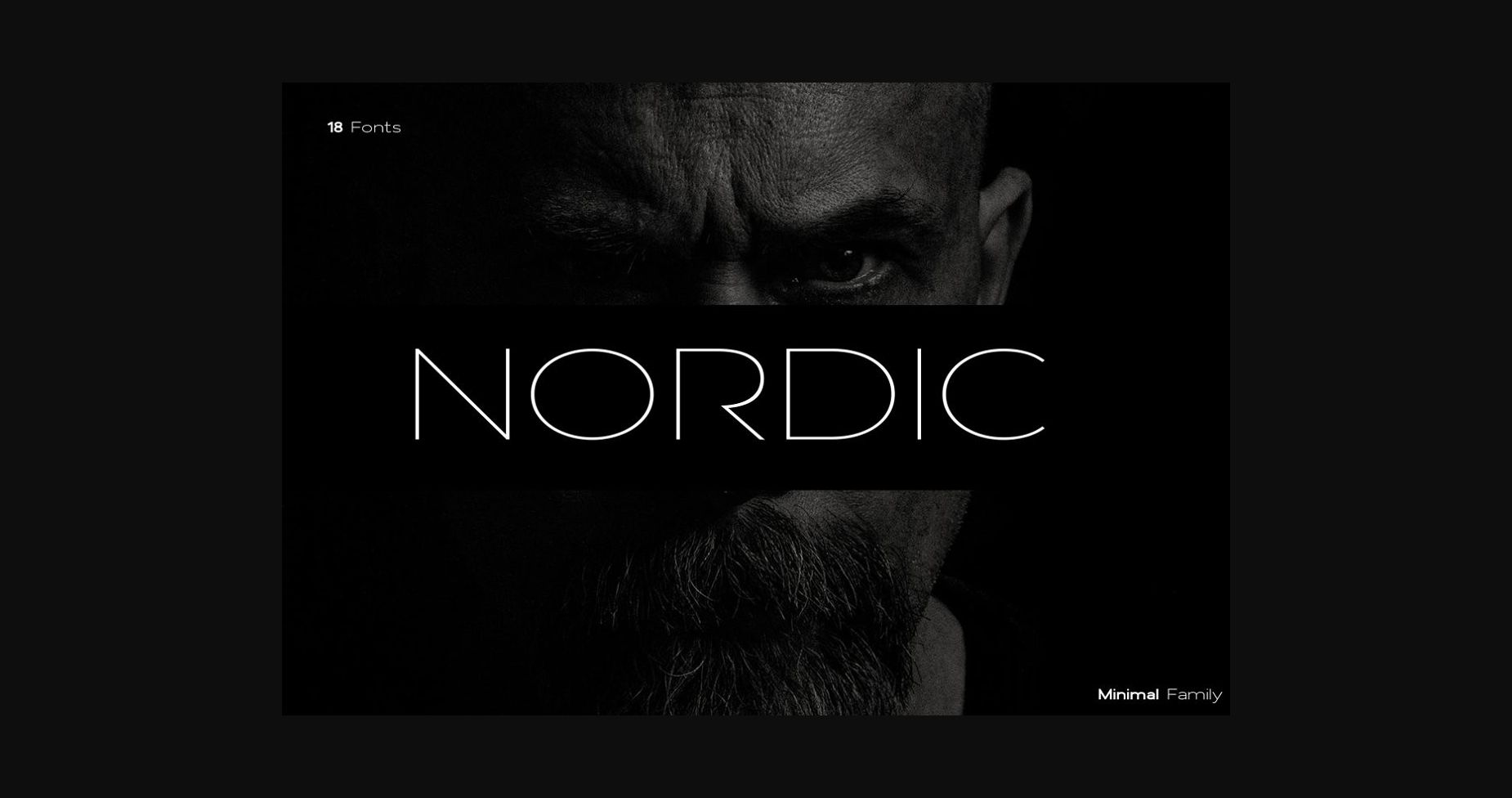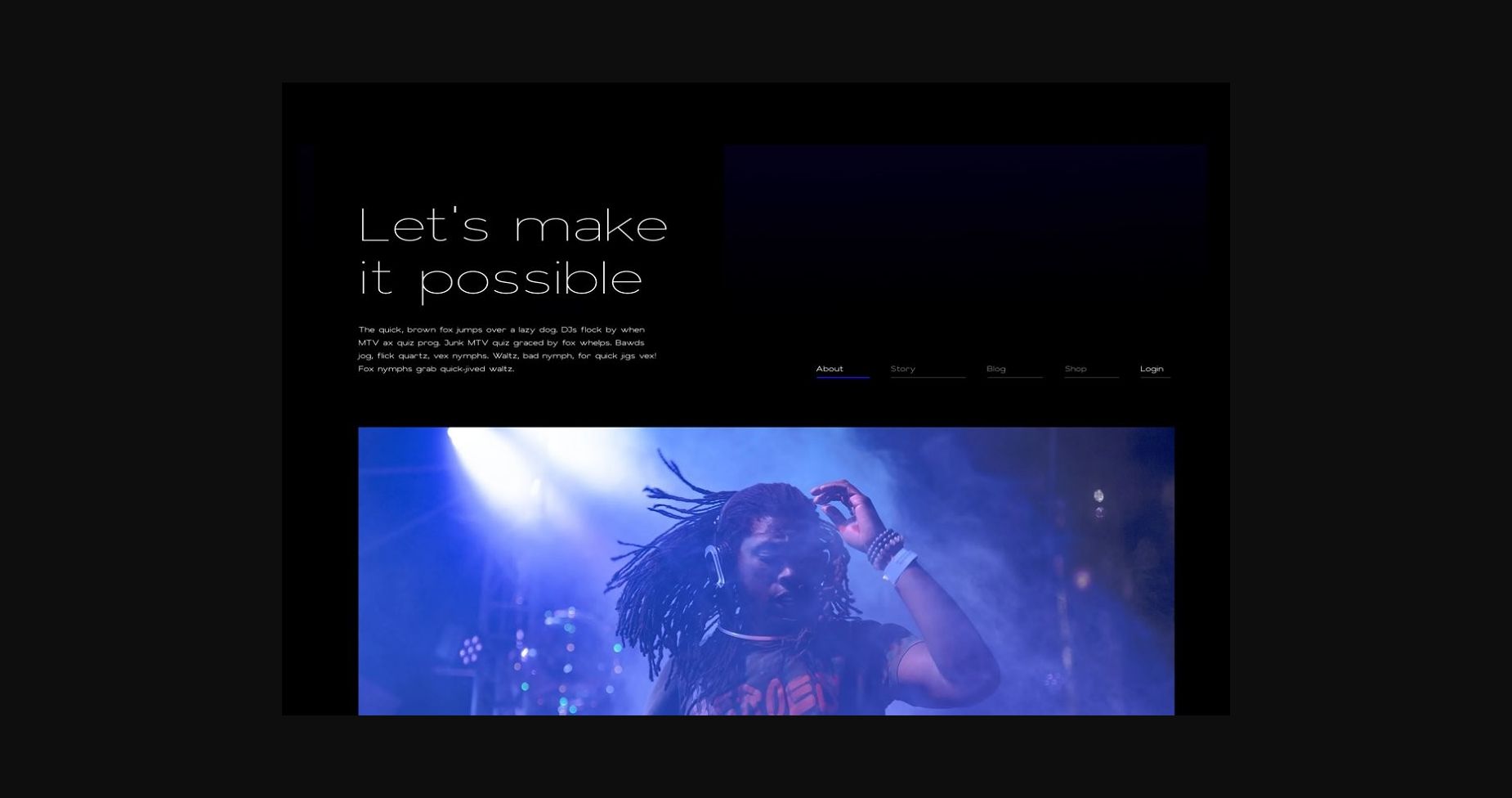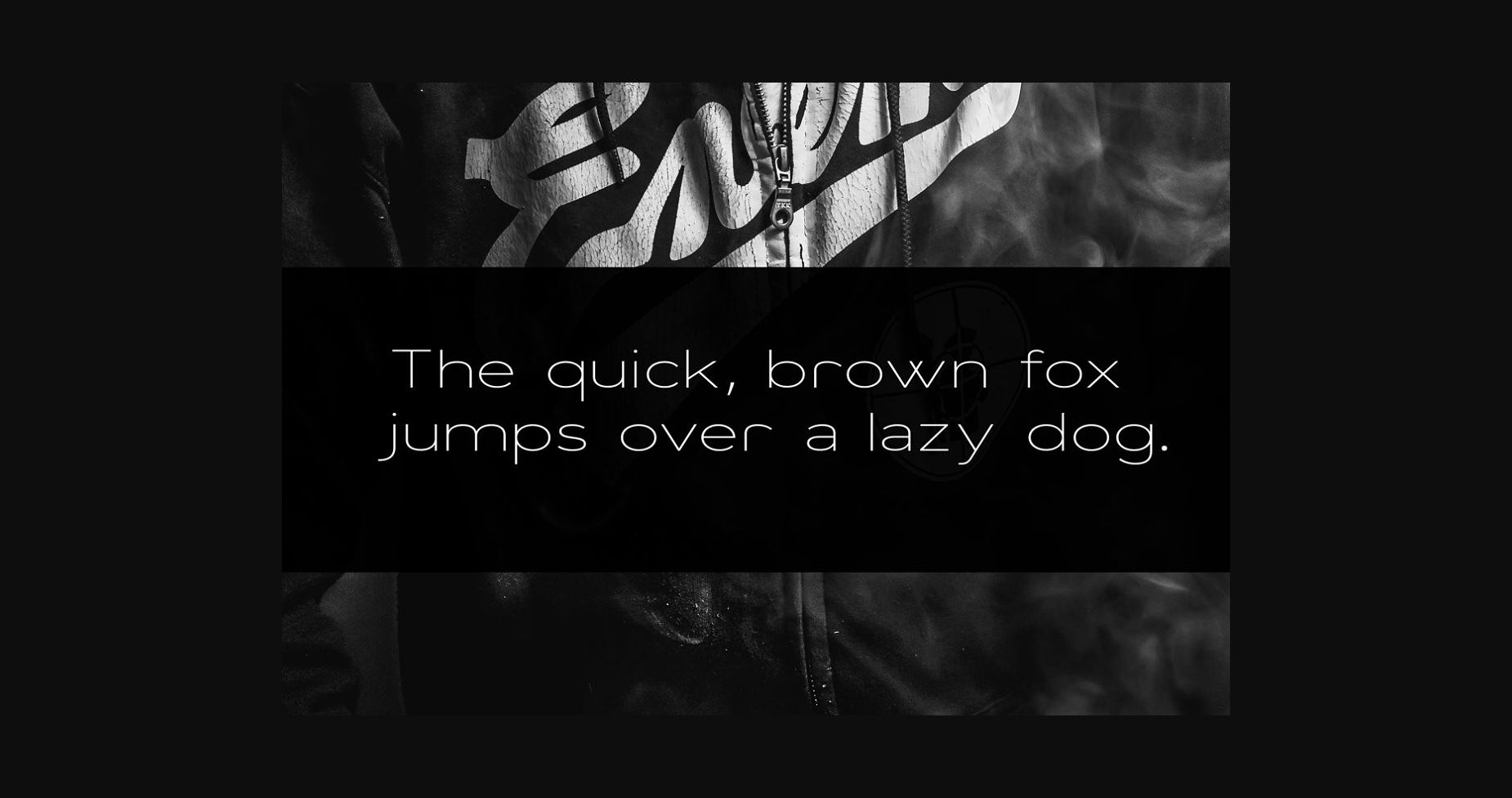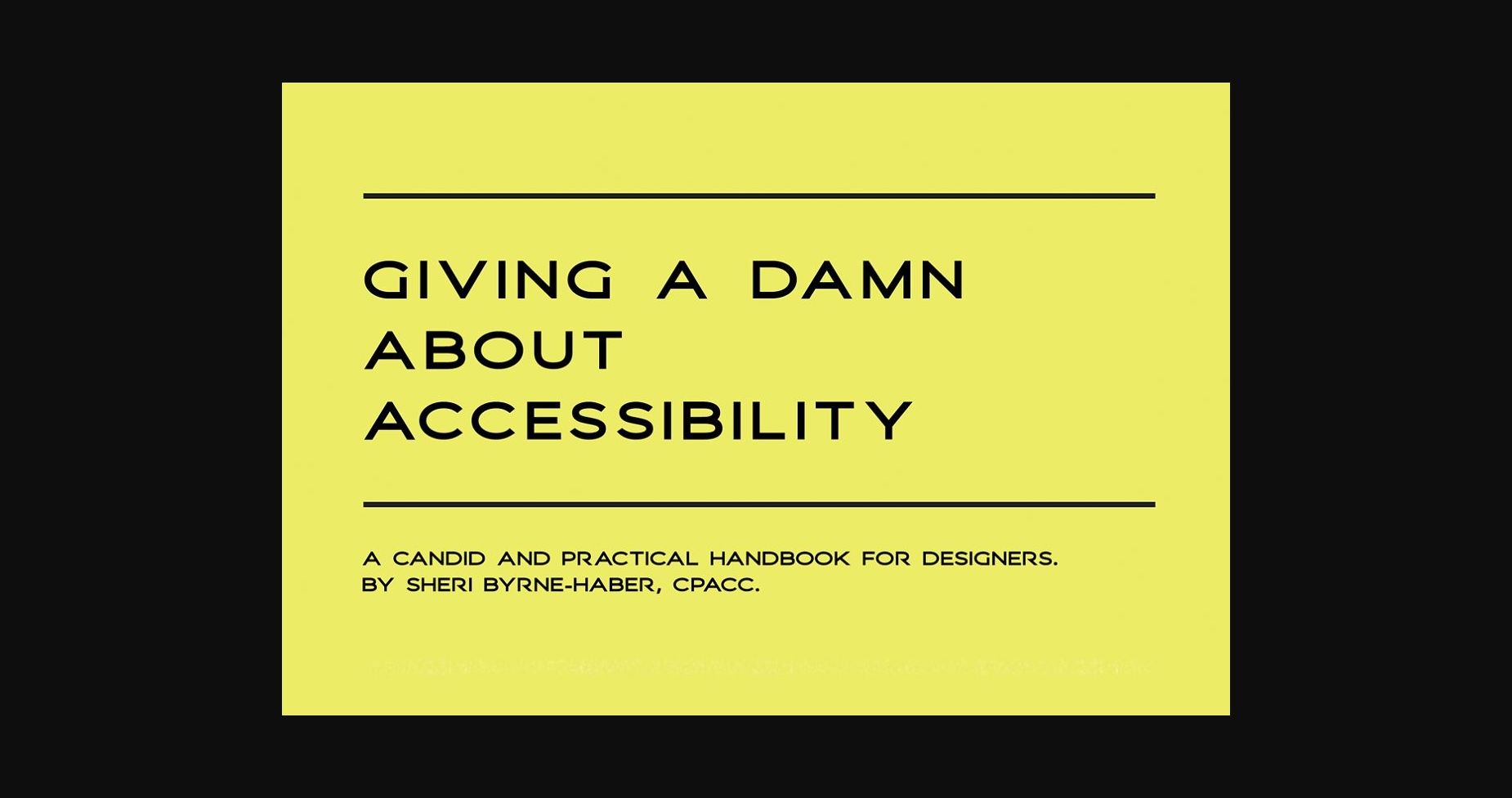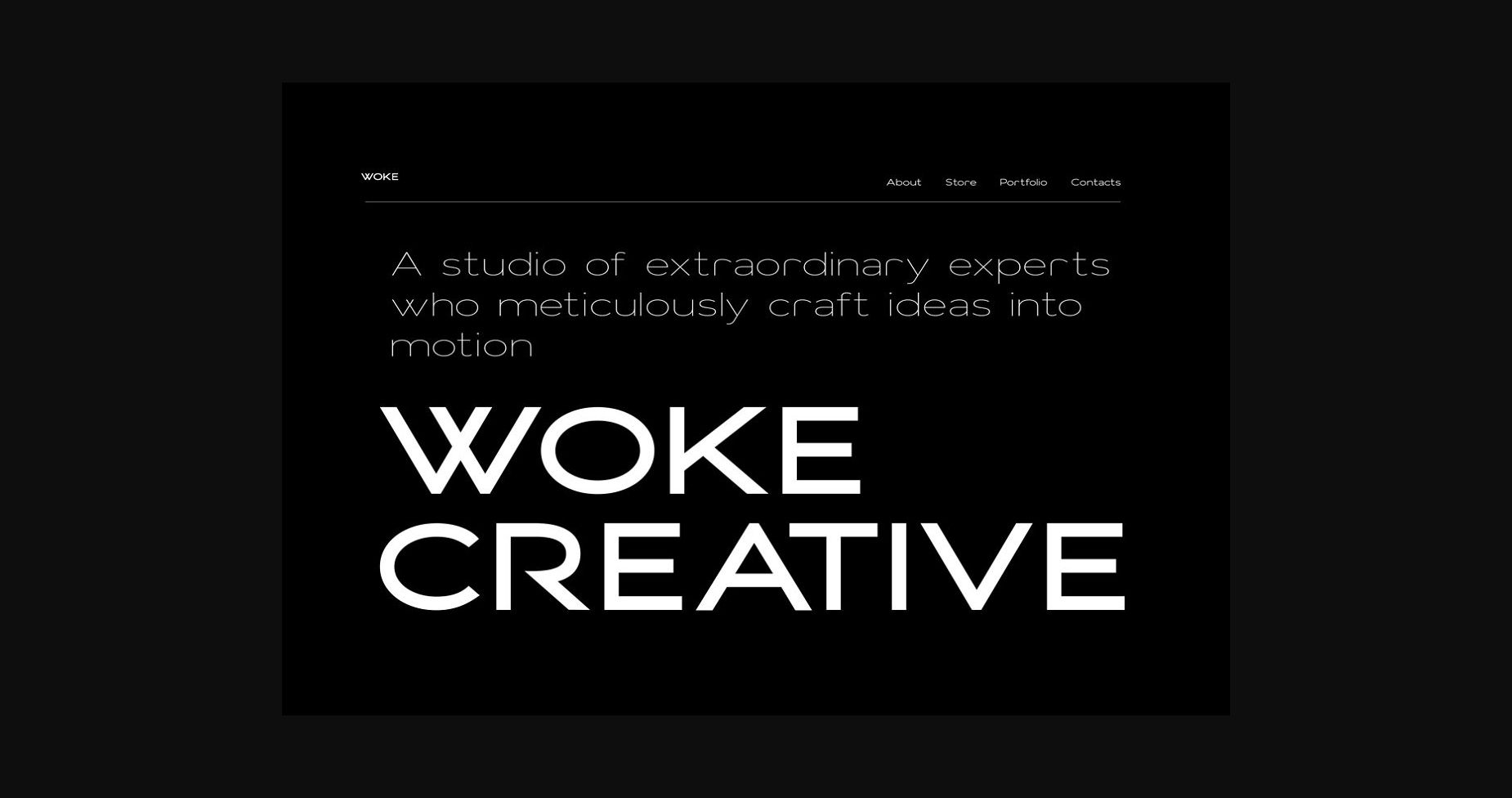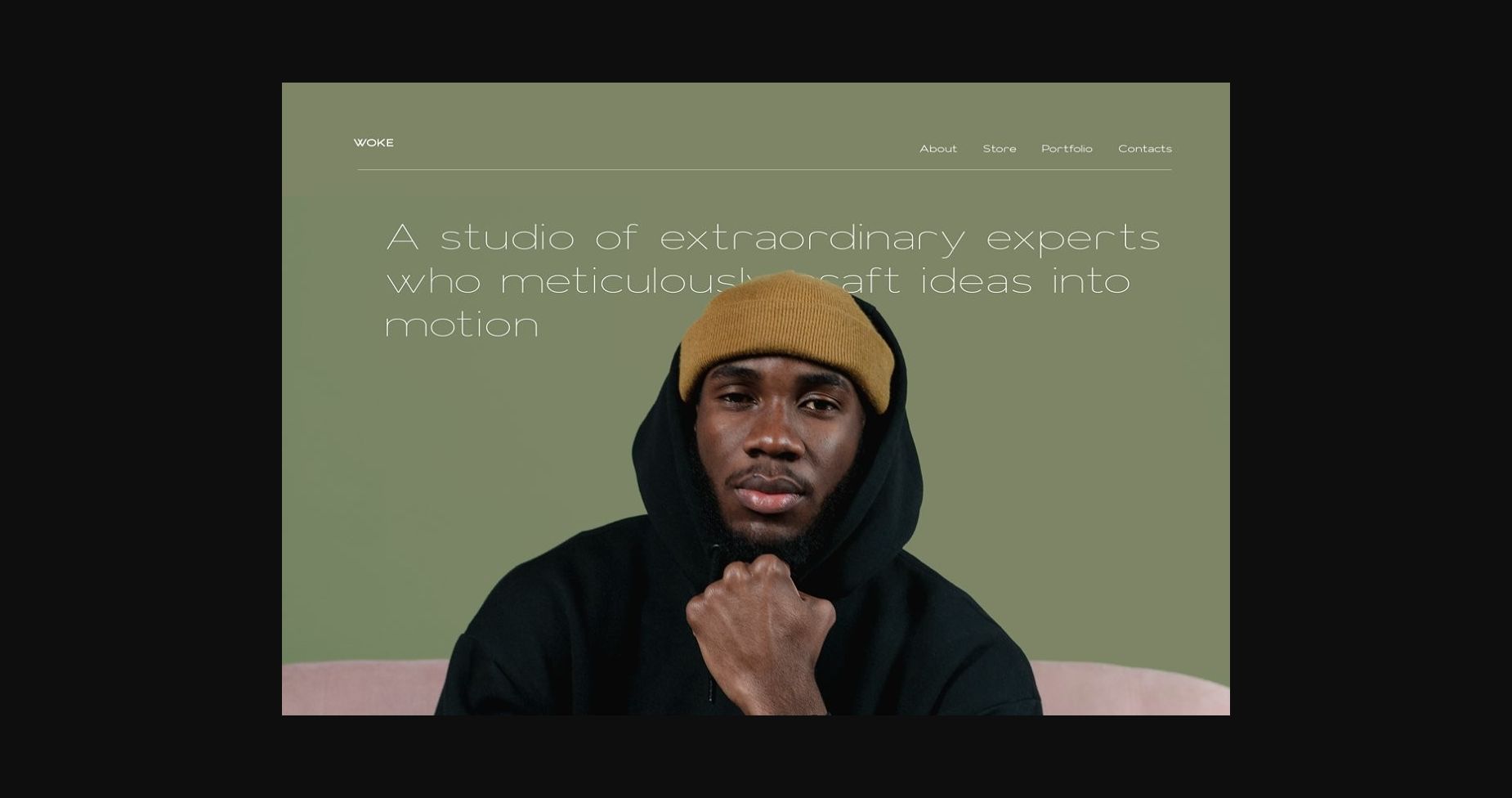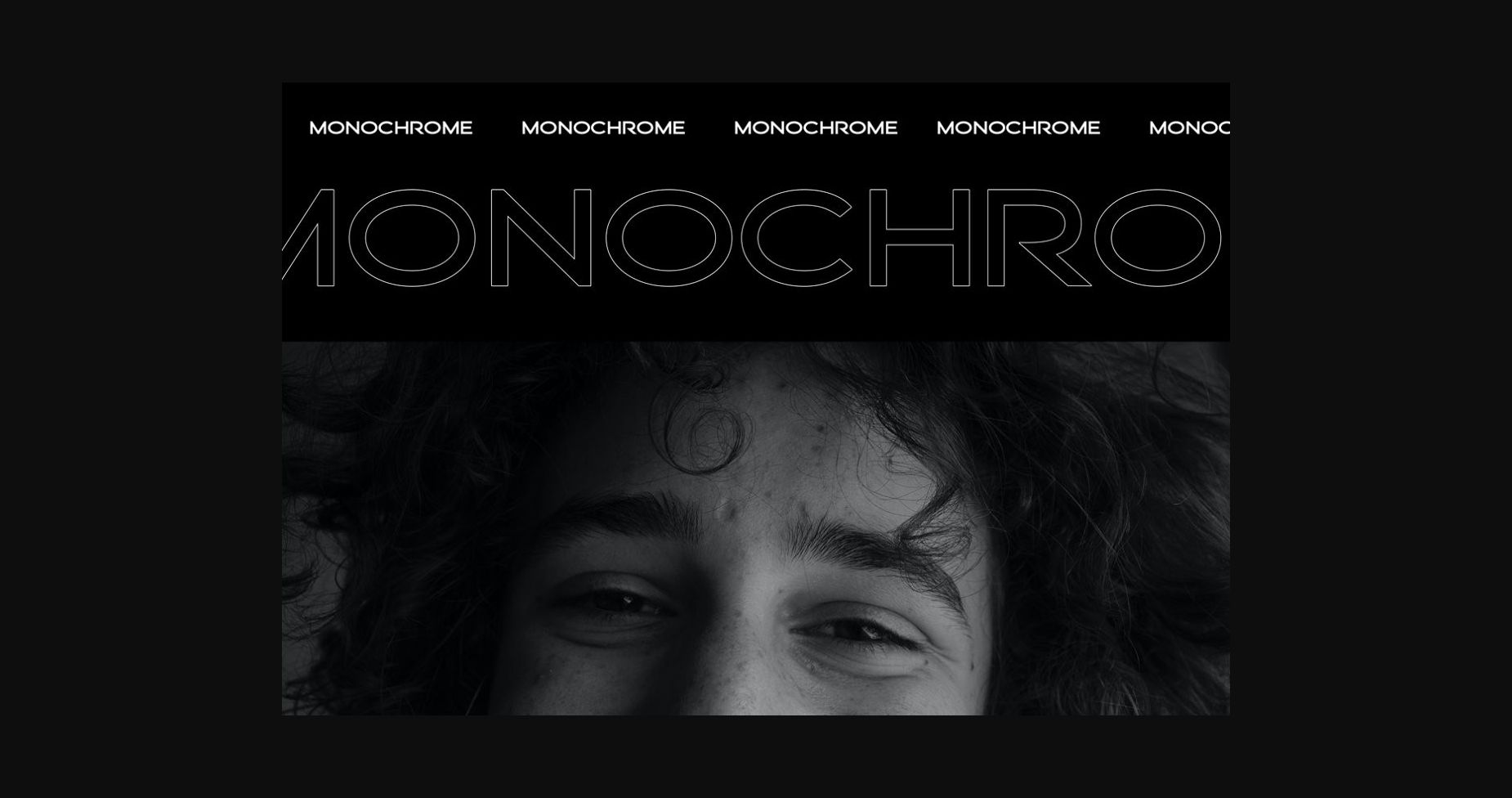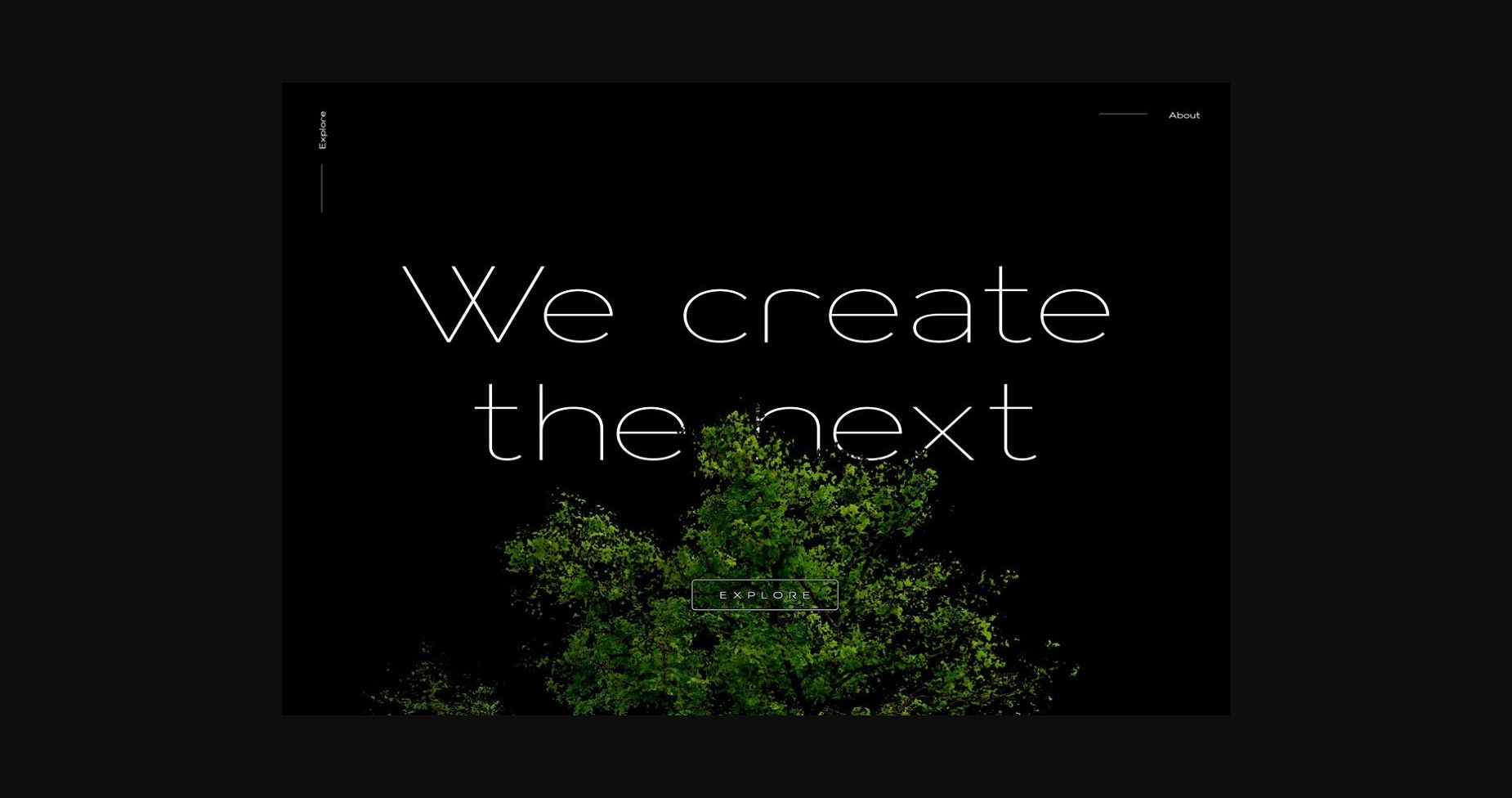
Nordic Font
About Nordic Font
Nordic is a slim and cool sans serif font. It is perfect for any branding project such as logos, t-shirt printing, creative products, and more.